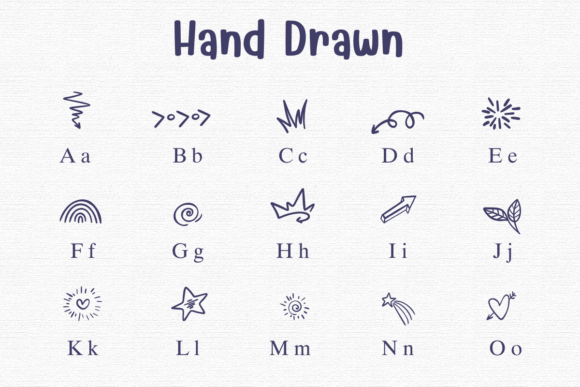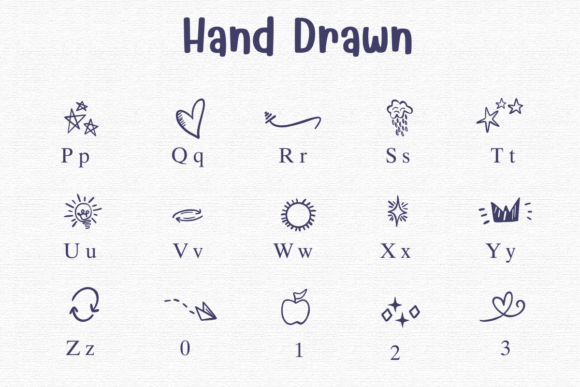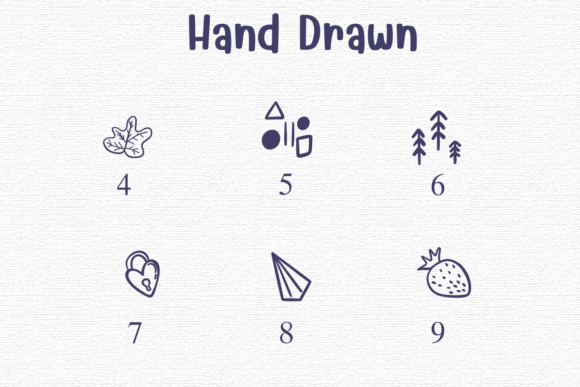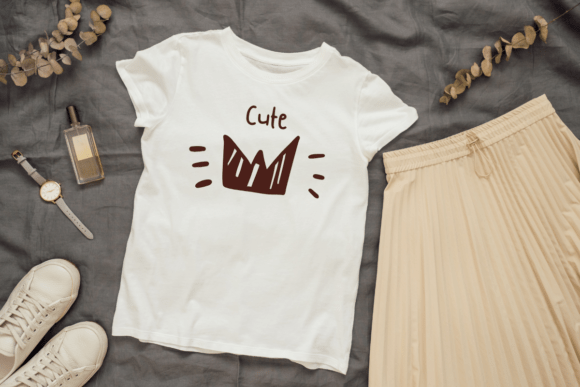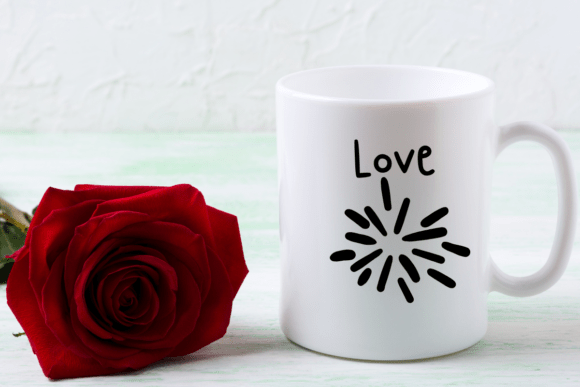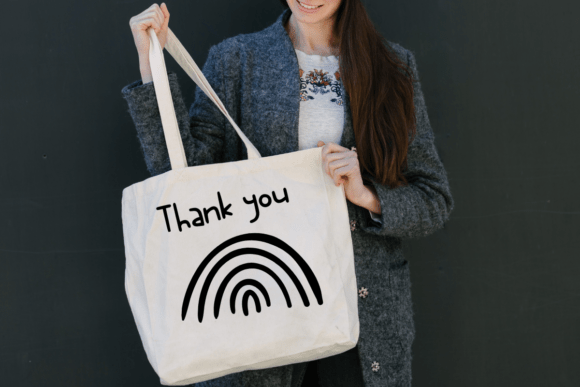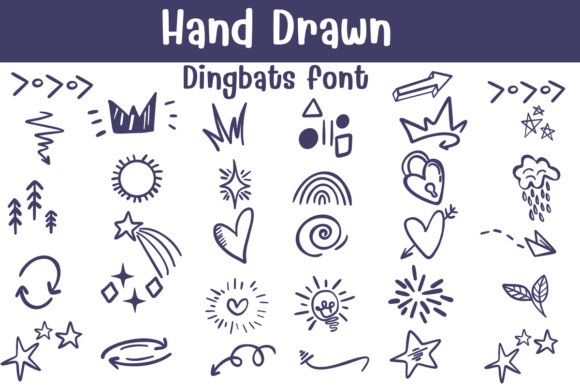
Introducing Hand Drawn: A Creative Dingbats Font for Designers and Crafters
Are you looking for a unique and creative way to add a personal touch to your designs? Look no further than Hand Drawn, a delightful dingbats font filled with sketch-style elements that will bring a casual, handmade flair to your projects. This charming font features a wide range of spontaneous doodles, including arrows, stars, hearts, scribbles, and swirls, perfect for decorating planners, scrapbooks, digital stickers, or social media designs.
The Charm of Hand Drawn
Hand Drawn is a one-of-a-kind font that captures the essence of hand-drawn art. Each element is carefully crafted to resemble a spontaneous doodle, with a playful and carefree vibe that’s sure to add a touch of whimsy to your designs. The font features a wide range of elements, including:
• Arrows: Perfect for pointing out important information or adding a decorative touch to your designs.
• Stars: Add a touch of magic to your designs with these sparkly stars.
• Hearts: Show your love and appreciation with these adorable heart-shaped doodles.
• Scribbles: Add a playful touch to your designs with these fun and quirky scribbles.
• Swirls: Create beautiful, flowing designs with these elegant swirls.
Uses for Hand Drawn
Hand Drawn is a versatile font that can be used in a variety of creative projects. Here are just a few ideas to get you started:
• Planner Design: Add a personal touch to your planners with Hand Drawn’s decorative elements. Use arrows to point out important dates, stars to highlight special events, and hearts to add a touch of love.
• Scrapbooking: Take your scrapbooking to the next level with Hand Drawn’s whimsical doodles. Use scribbles to add texture and interest to your pages, and swirls to create beautiful borders.
• Digital Stickers: Create adorable digital stickers with Hand Drawn’s cute and playful elements. Use hearts to create sweet messages, and stars to add a touch of magic.
• Social Media Design: Add a touch of personality to your social media designs with Hand Drawn’s decorative elements. Use arrows to point out important information, and swirls to create beautiful backgrounds.
Why Choose Hand Drawn?
So why choose Hand Drawn for your design projects? Here are just a few reasons:
• Unique and Creative: Hand Drawn is a one-of-a-kind font that will add a touch of personality to your designs.
• Versatile: Use Hand Drawn in a variety of creative projects, from planners and scrapbooks to digital stickers and social media designs.
• Easy to Use: Hand Drawn is a dingbats font, making it easy to use and navigate.
• High-Quality: Hand Drawn is a high-quality font, carefully crafted to ensure that each element is crisp and clear.
If you’re looking for a creative and unique way to add a personal touch to your designs, look no further than Hand Drawn. This delightful dingbats font is perfect for designers and crafters who want to add a touch of whimsy and personality to their projects. With its wide range of sketch-style elements, Hand Drawn is sure to become a favorite in your design toolkit.